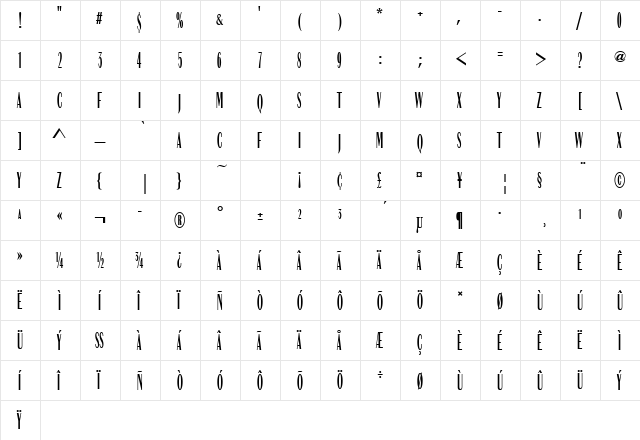
URWCompressD Regular
Design Context for URWCompressD Typeface
URWCompressD takes a measured approach to typography — its balanced proportions and neutral character make it a reliable workhorse for both digital and print work.